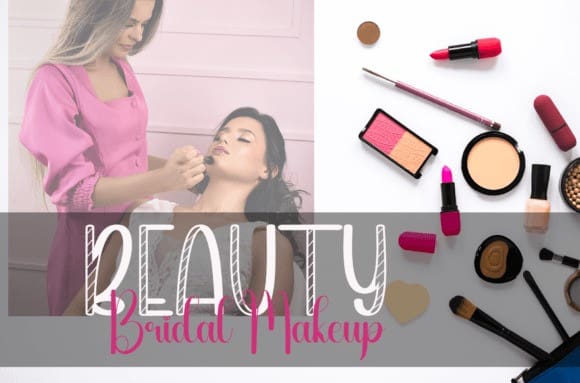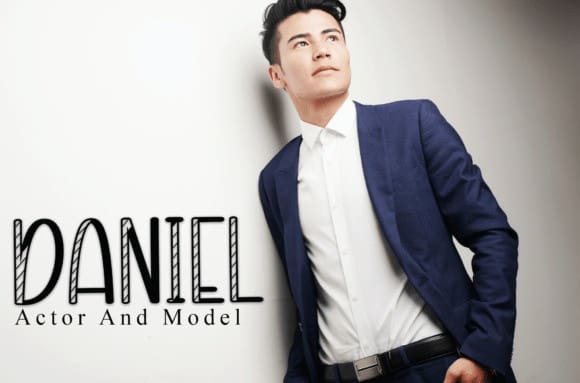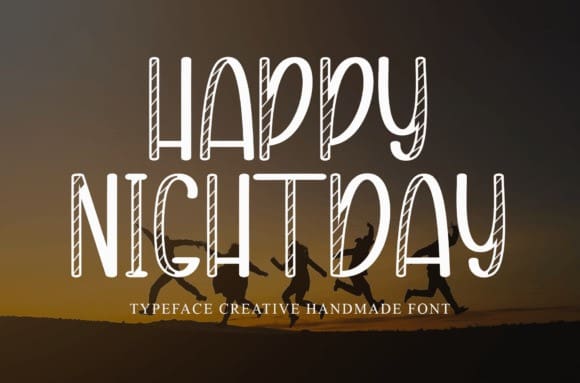
Happy Nightday Font
Happy Nightday Font is a sweet and friendly handwritten font. Cute and fun, this font is ideal for writing wedding invitations, cards, or any other design that might need a fun touch!